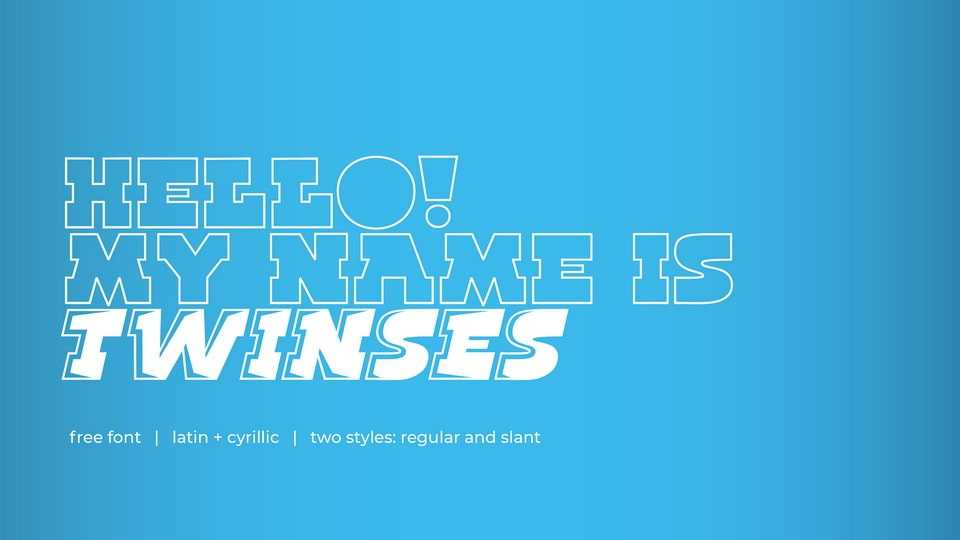
Download Twinses font, an accidental modular typeface created from simple geometric shapes. Twinses font features rhythm, stencil effect, slant, as well as straight strokes that replicate the logic of a wide pen.
Designer: Anastasia Ermolaeva